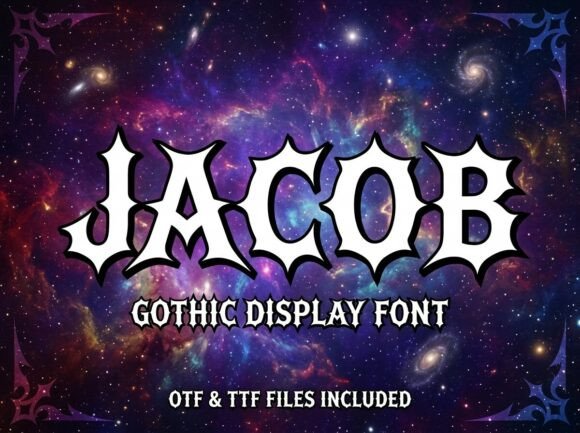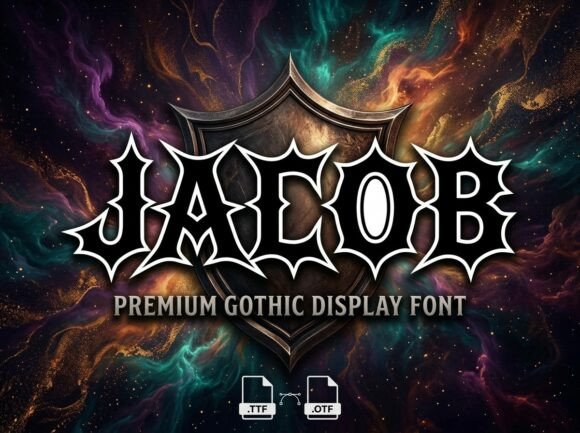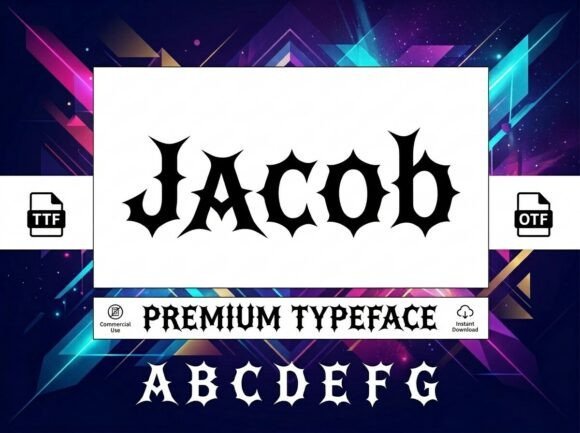
Introduction to Jacob Font
Command attention with Jacob, a premium typeface that blends medieval structure with modern sharpness.
This font features bold, symmetrical letterforms with “vampiric” thorns and dramatic points, creating a look that is both regal and dangerous With its “gothic-architectural” soul and professional graphic weight, Jacob is the premier choice for luxury occult branding, dark RPG interface design, cinematic fantasy titles, and commanding “modern-gothic” digital headers.
Why Choose Jacob Font?
Jacob Font offers exceptional quality and versatility, making it a valuable addition to your design toolkit. Whether you’re creating for personal projects or commercial use, Jacob Font delivers professional results.